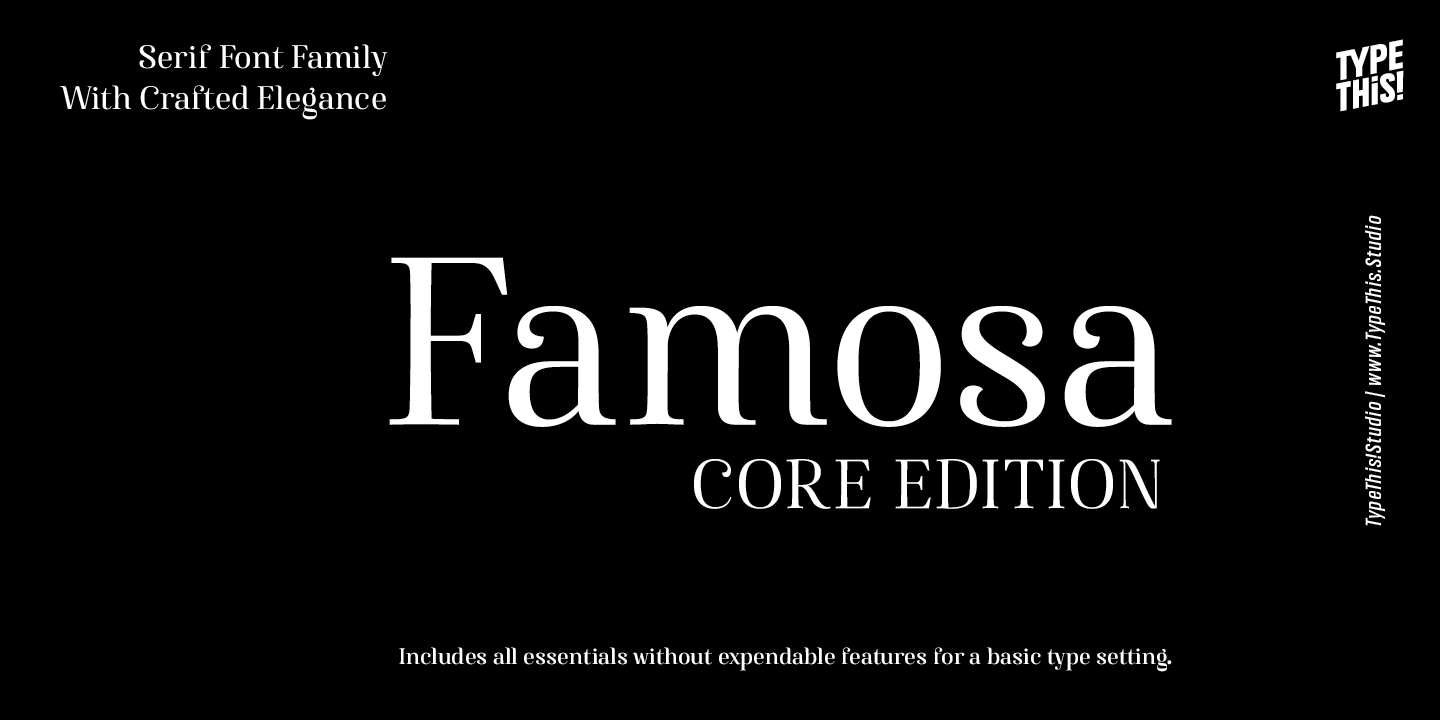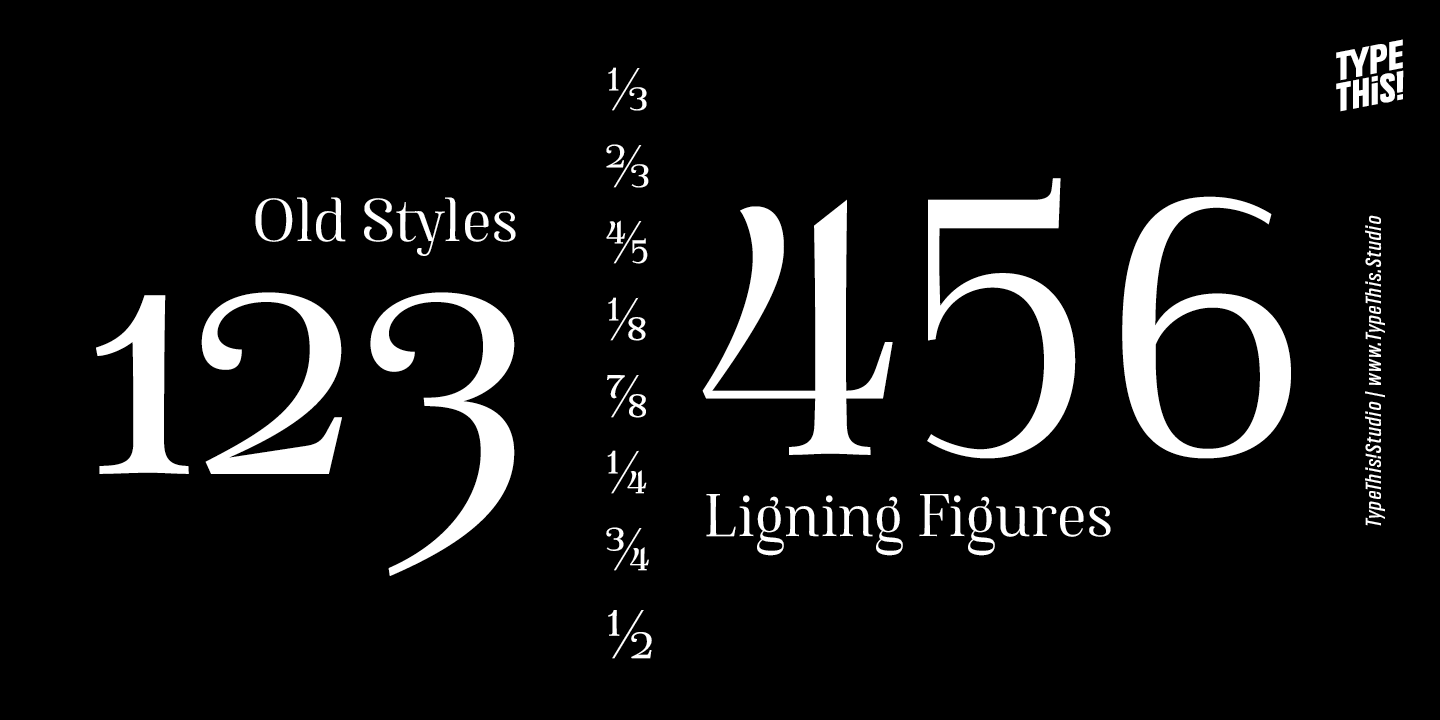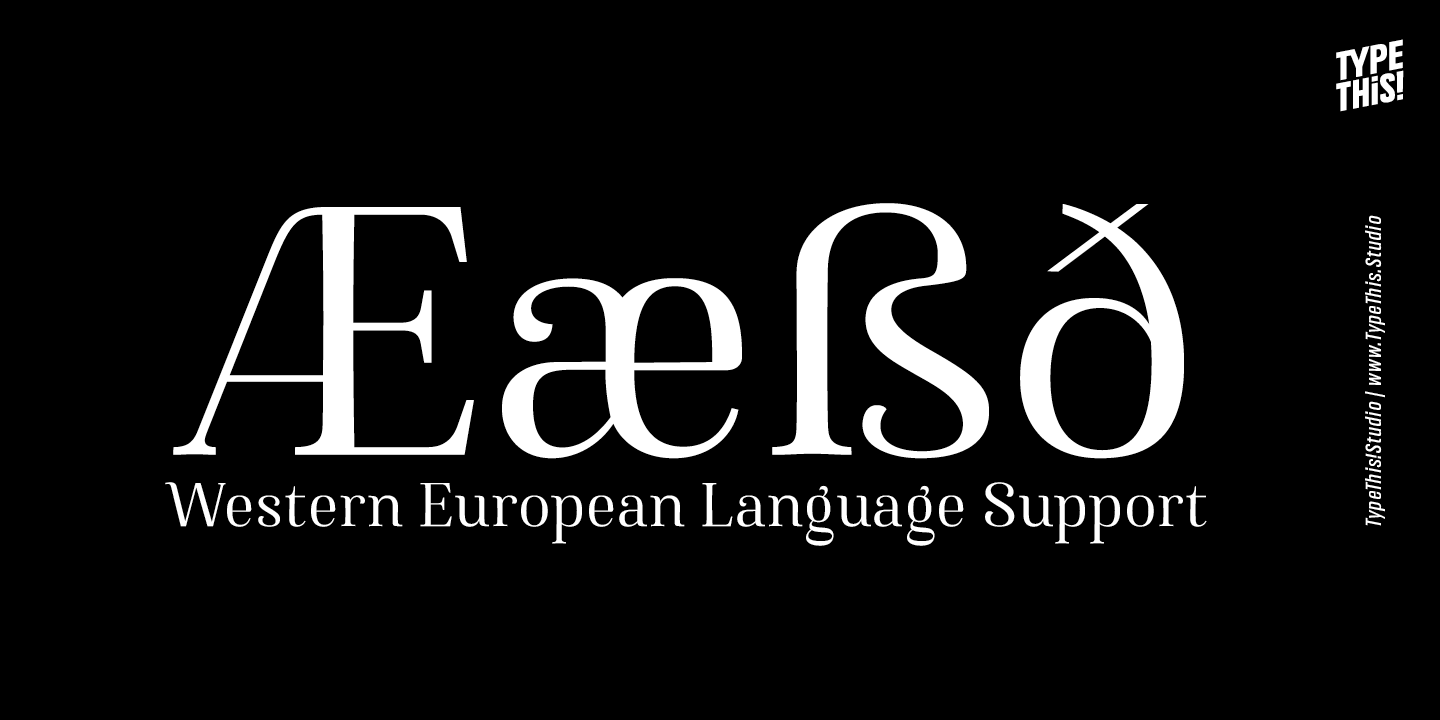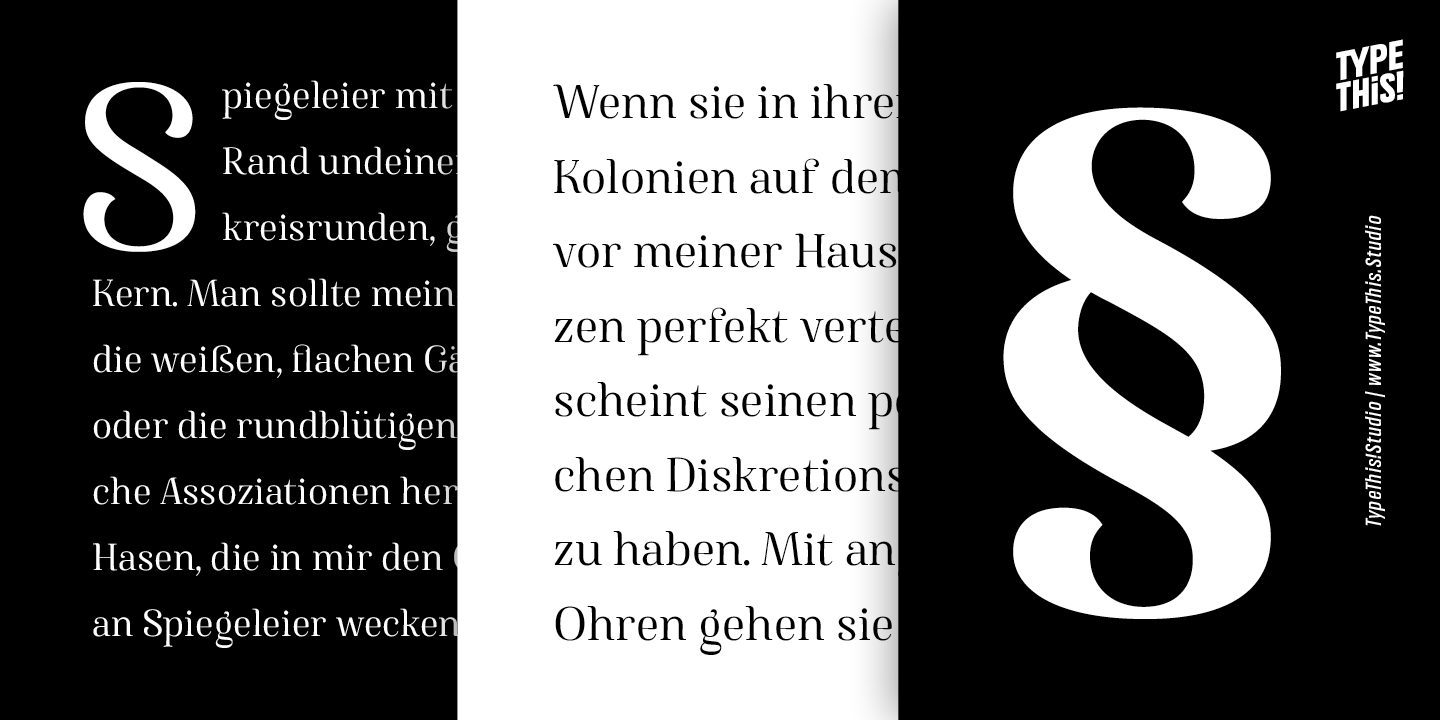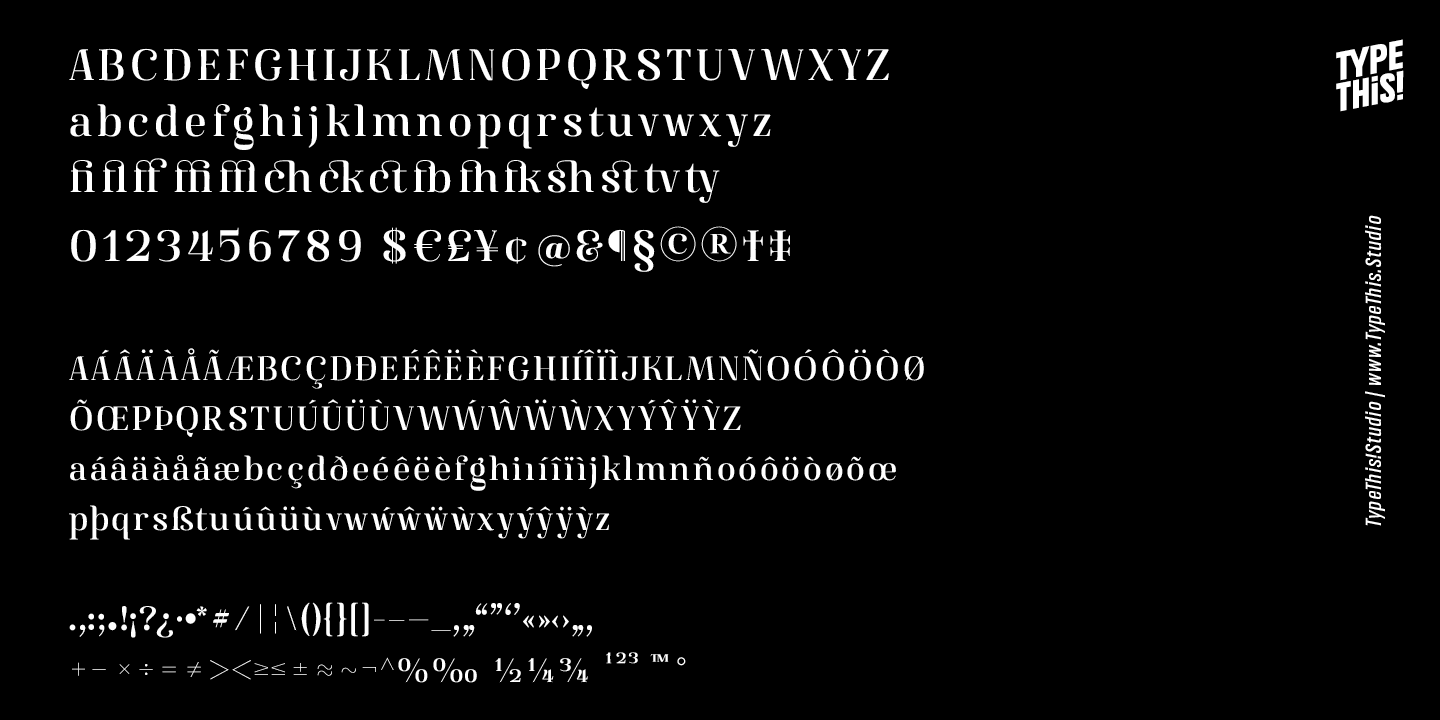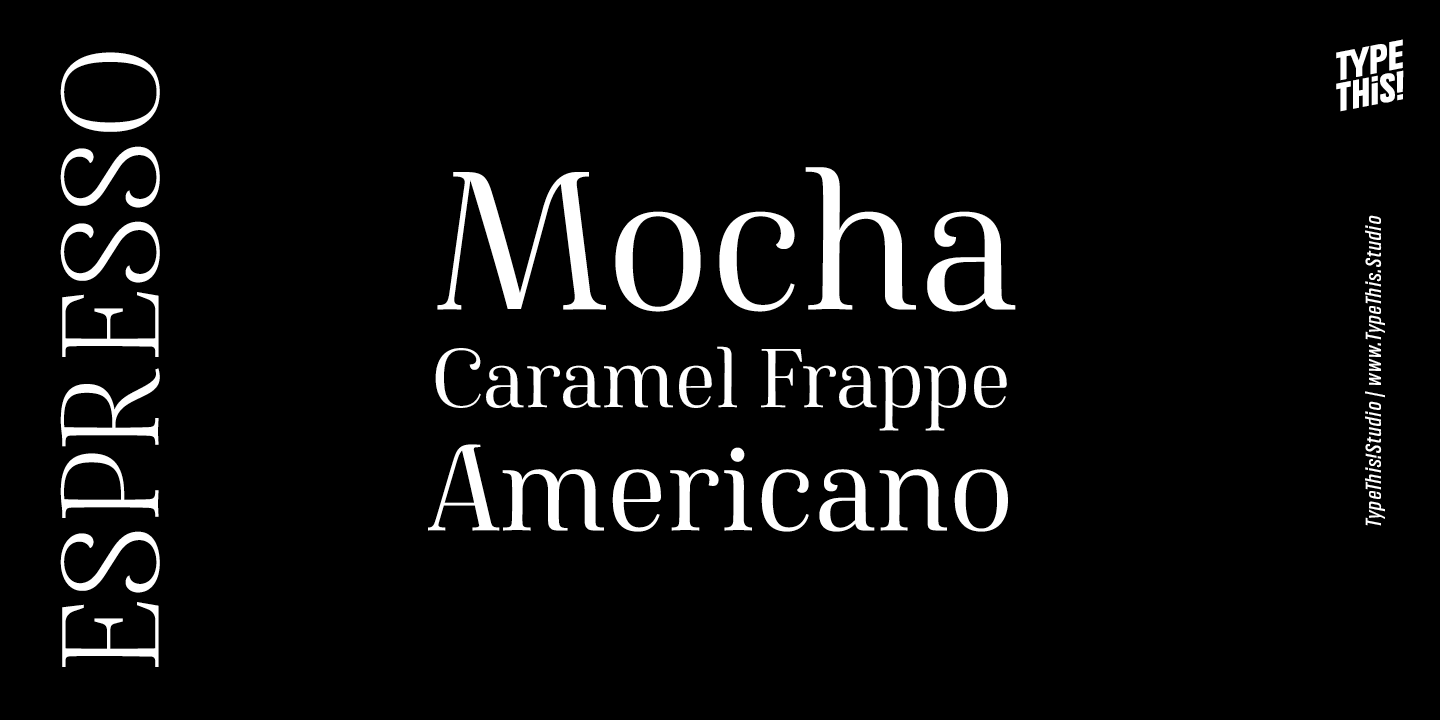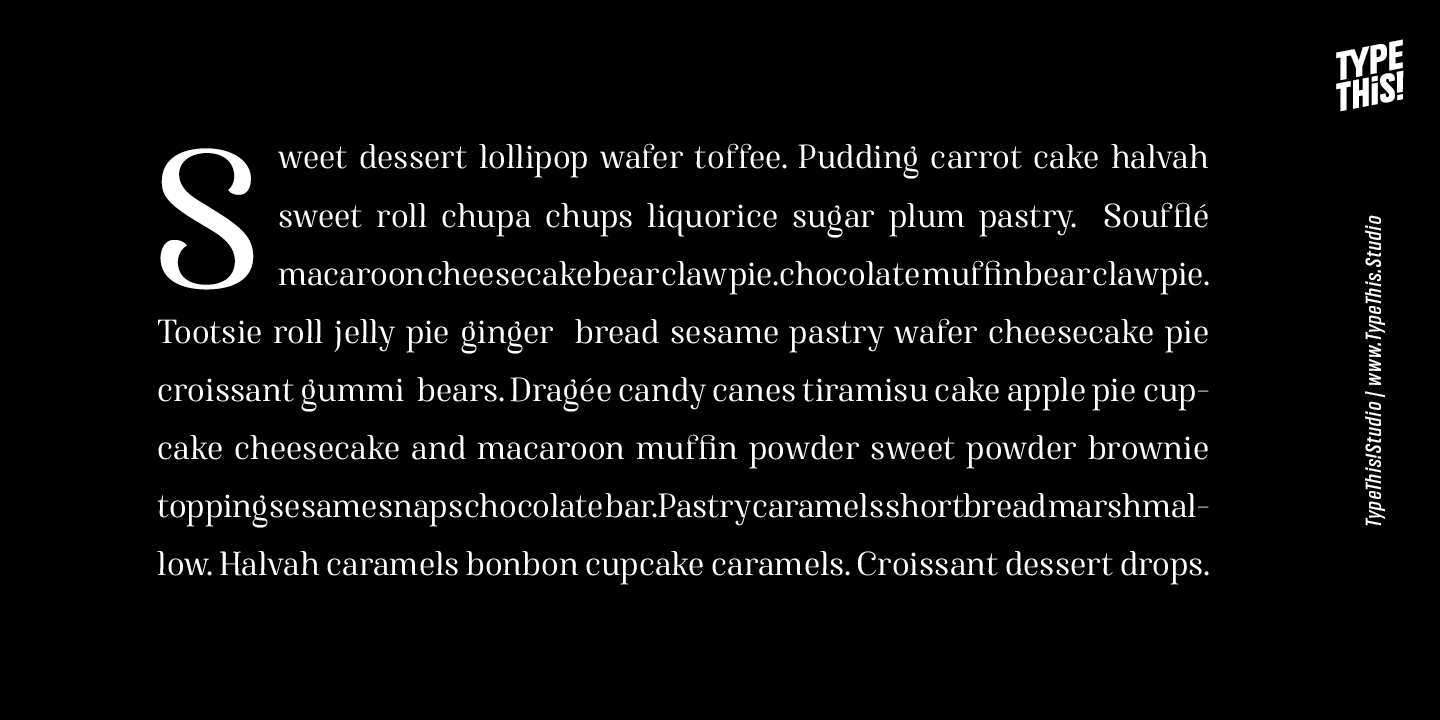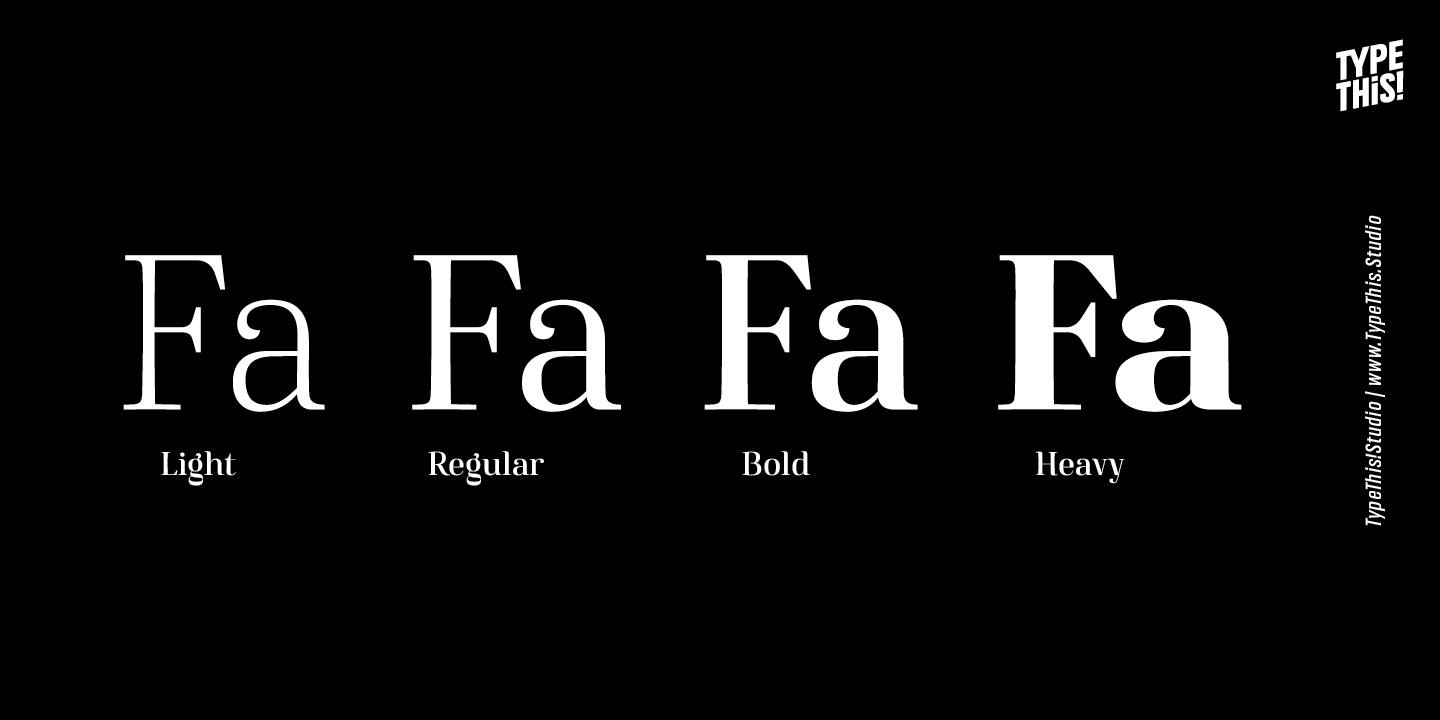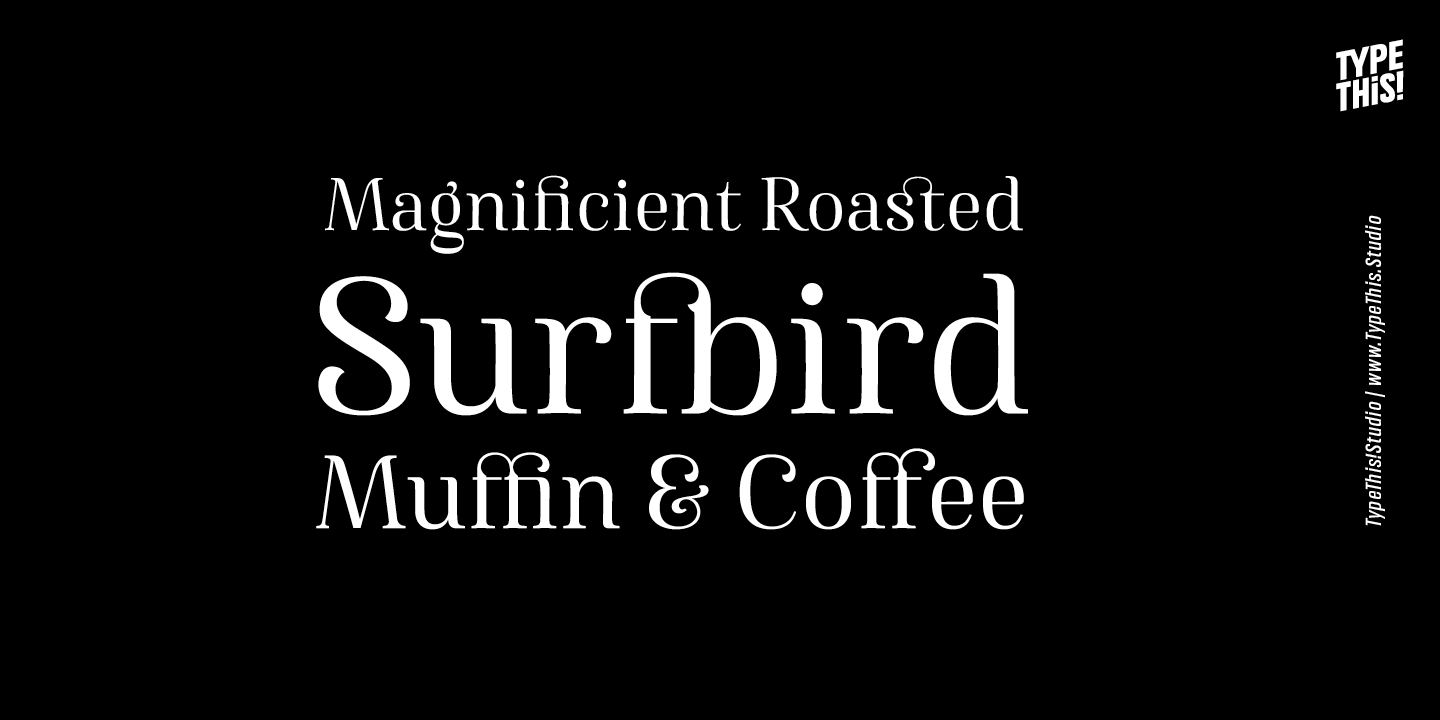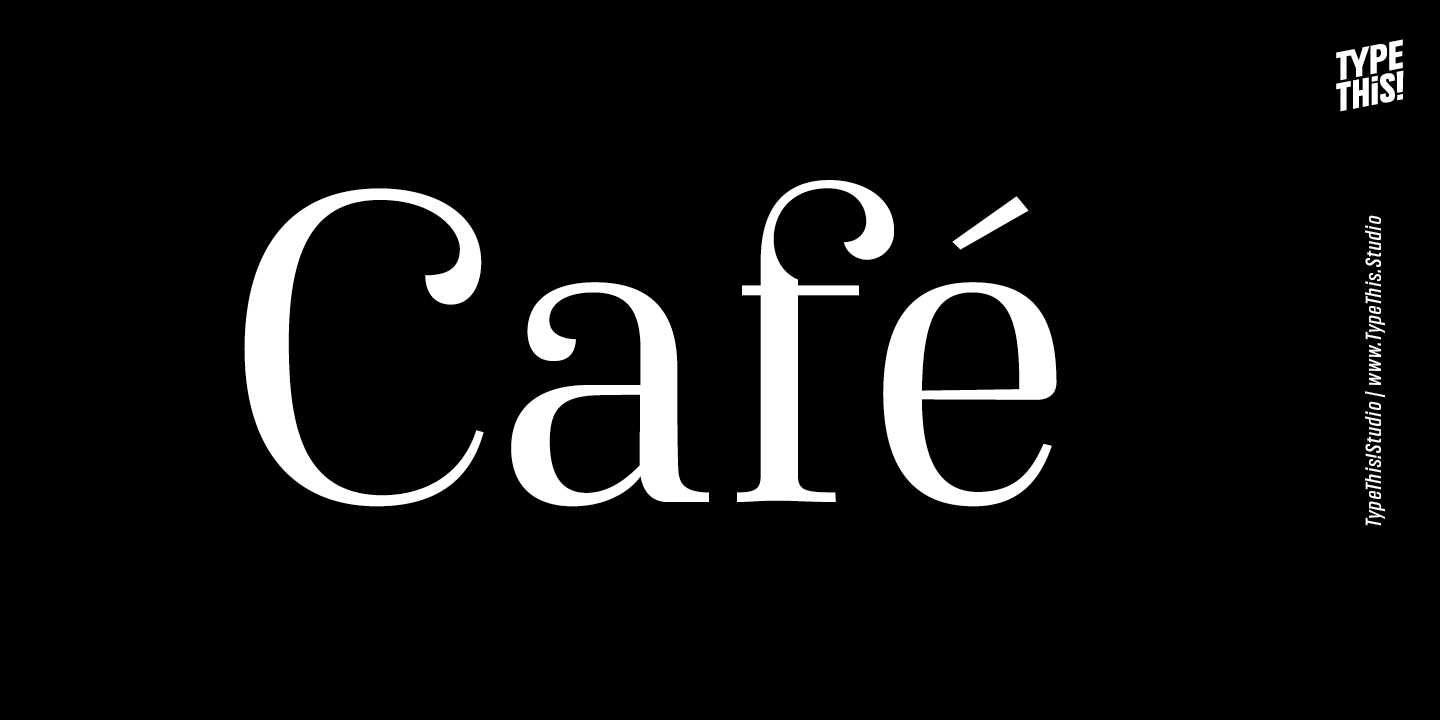
Famosa Core Edition (4 fonts)
From Anita Jürgeleit / TypeThis! Studio
Famosa is designed for all your stylish fashion magazines, clothing brands, and logos as well as your elegant blogger themes. The highlights are for sure the beautiful ligatures, such as sh, ct, fb and more.